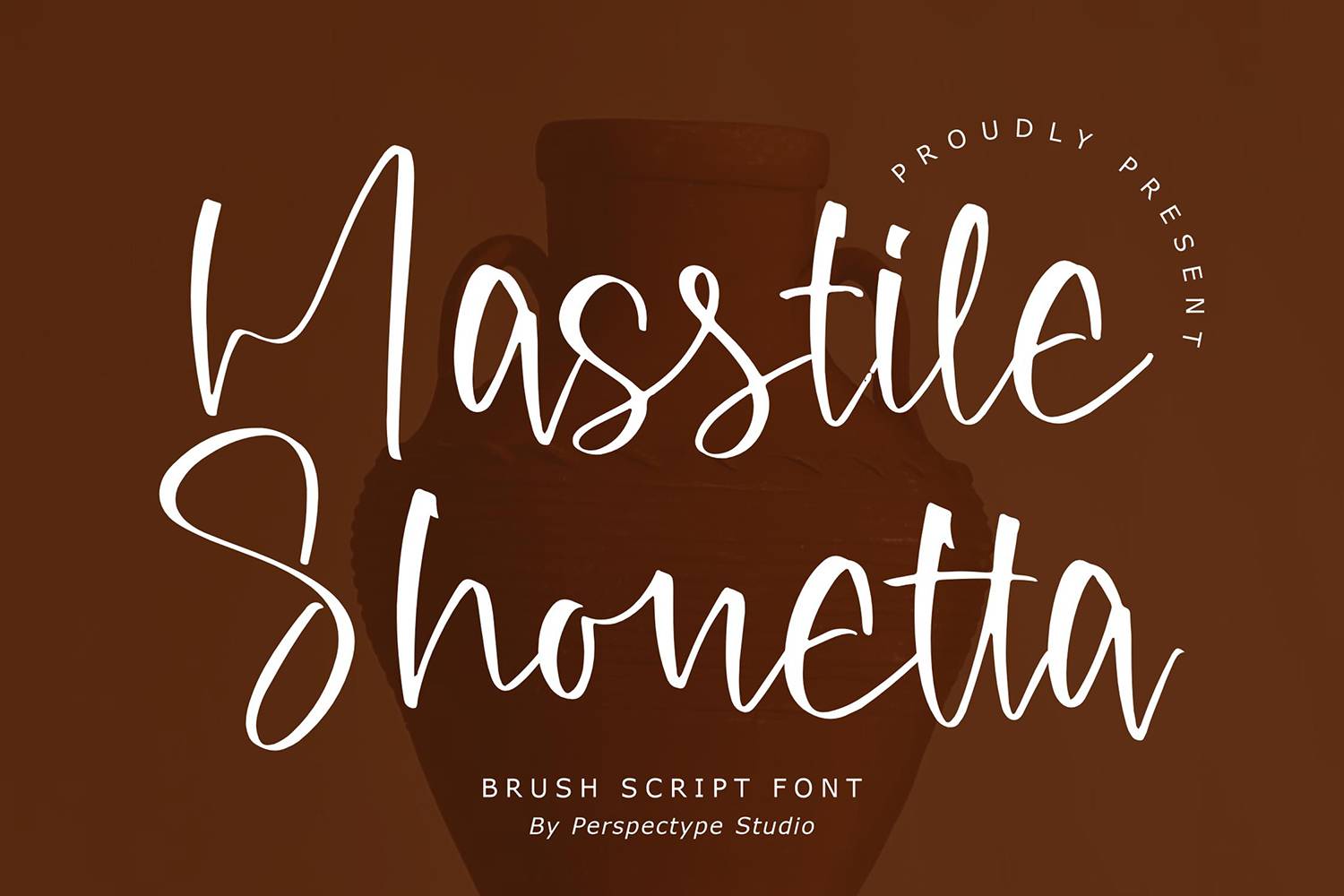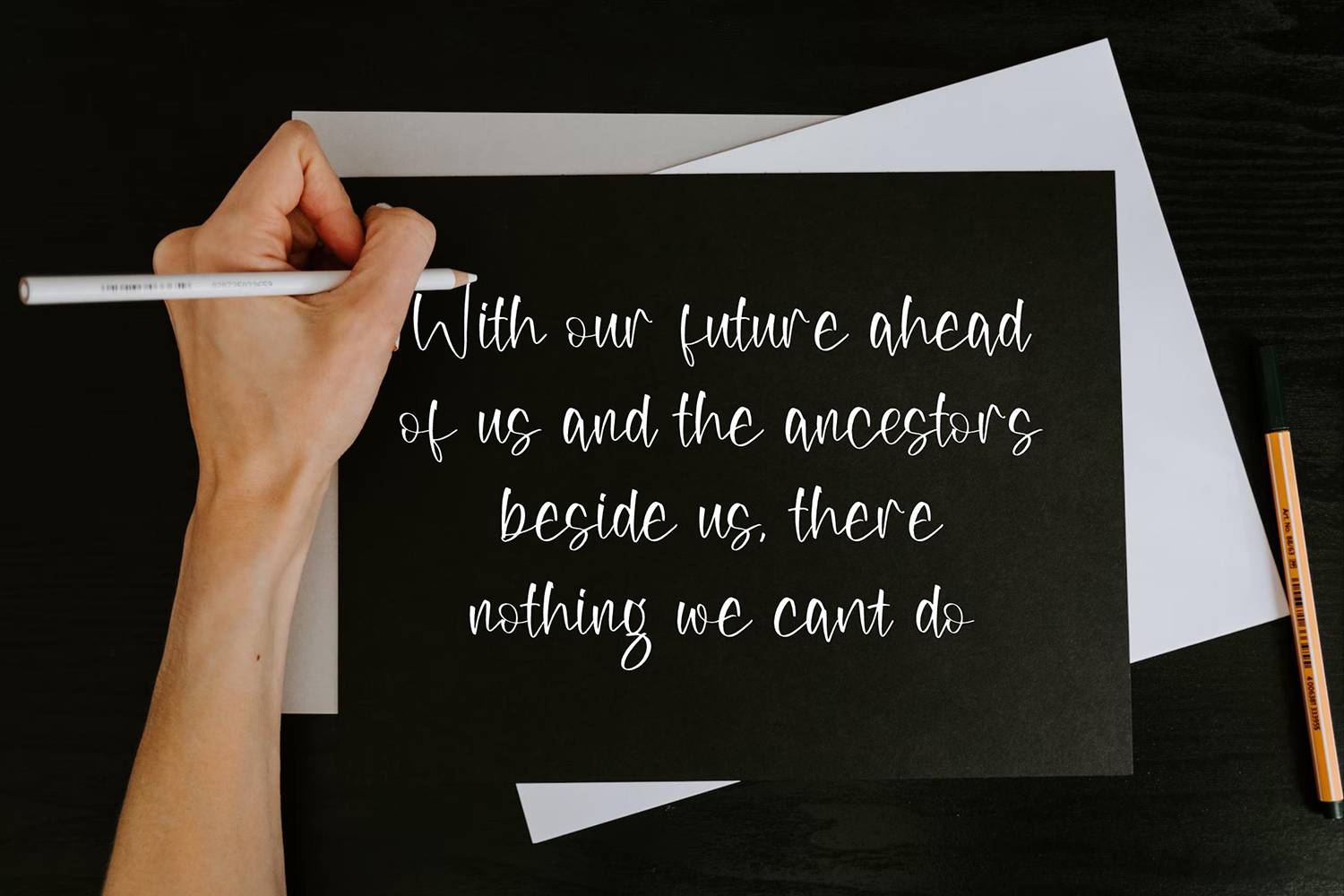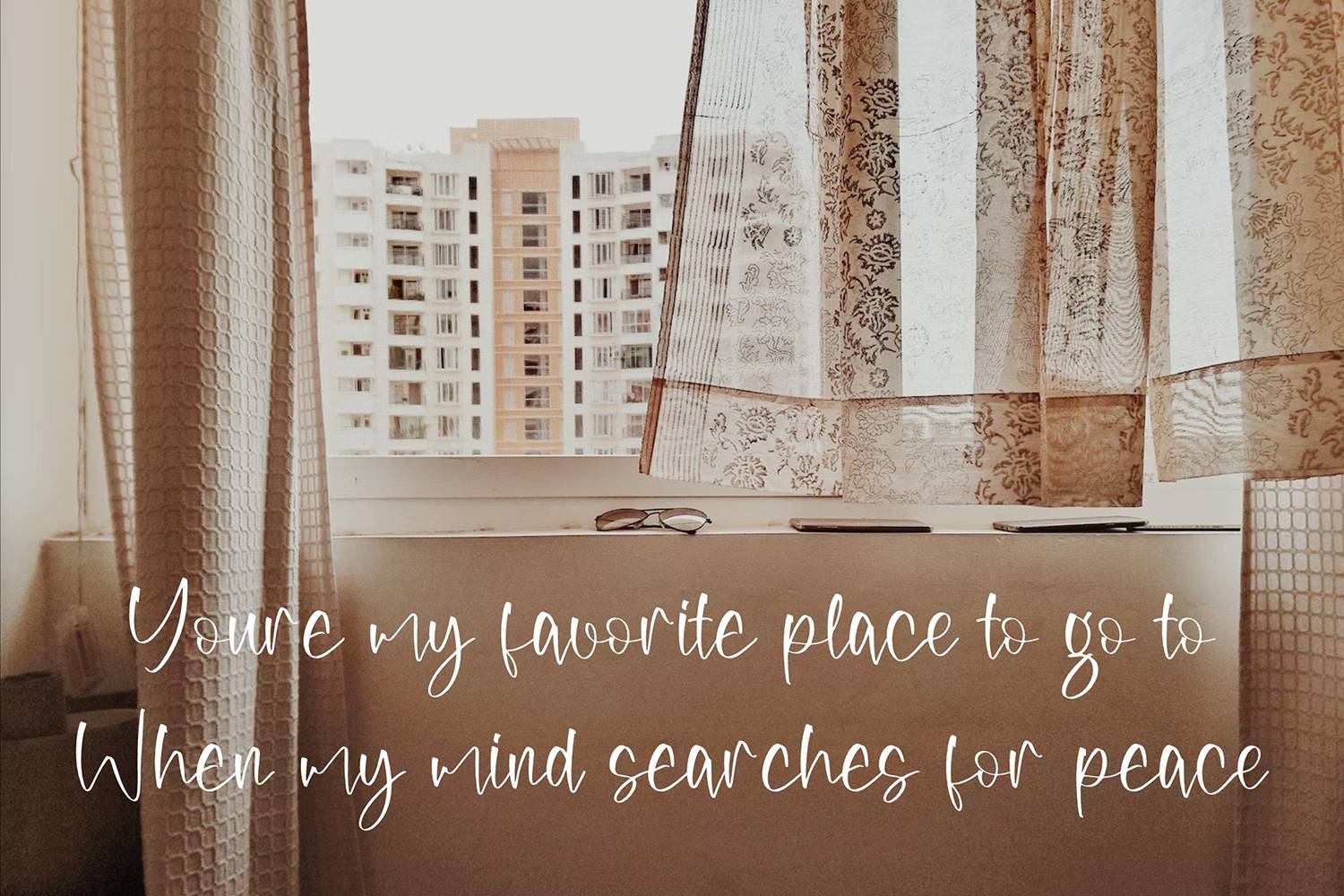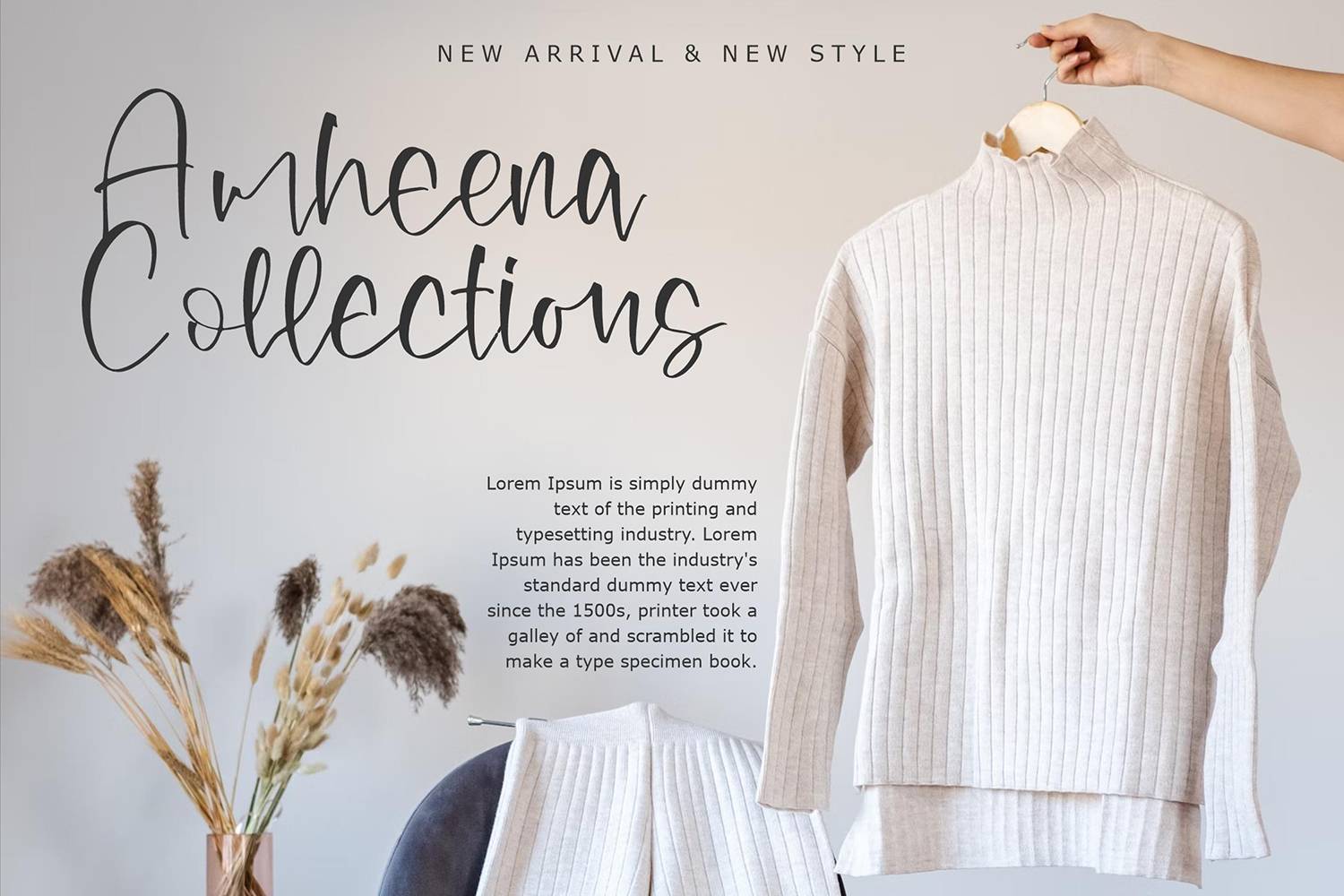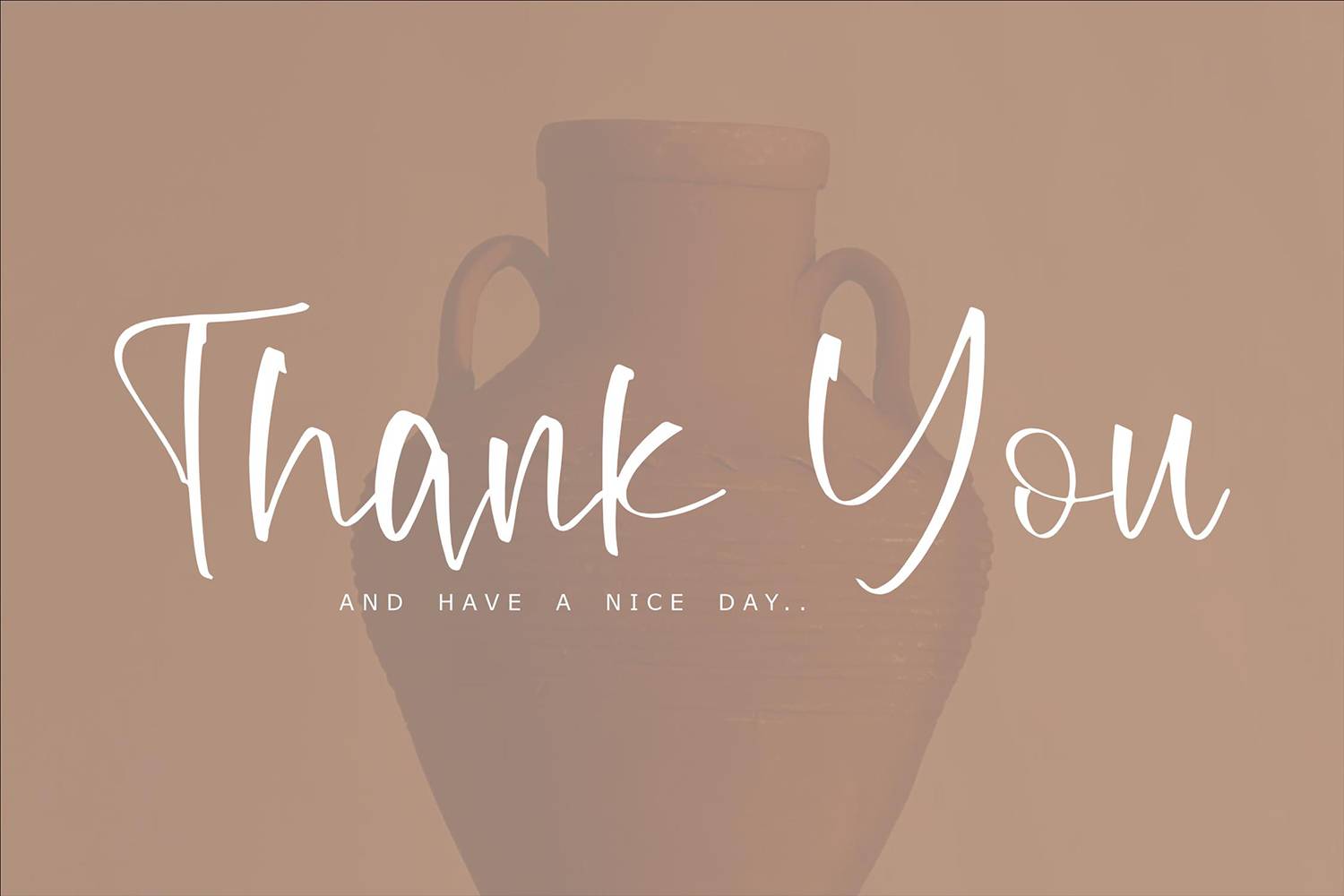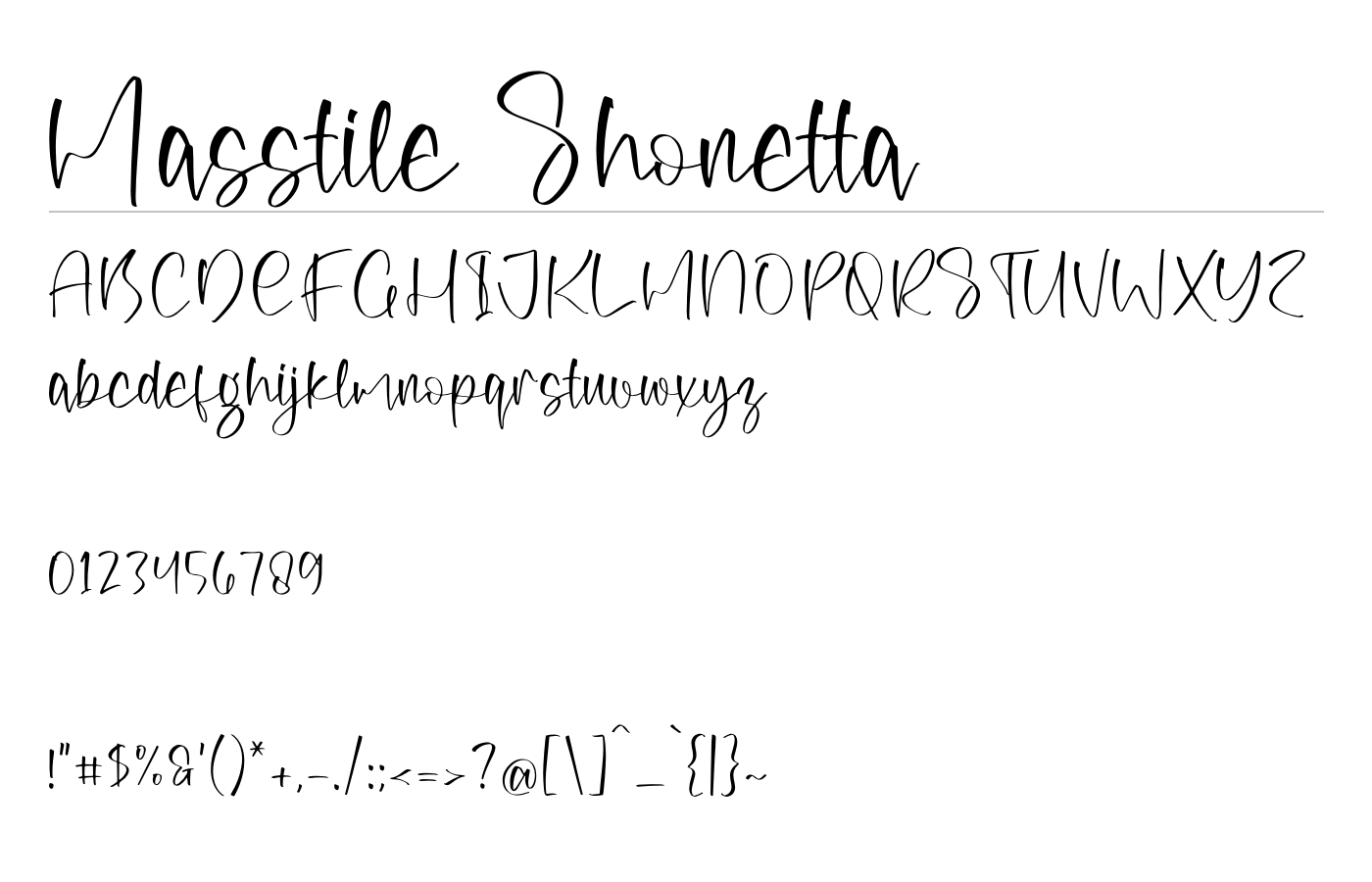
Masstile Shonetta is a delicate and modern handwritten script font that features slender, fluid strokes with a casual, artistic flair. Its narrow width and varied stroke weight create a light and airy feel, making it perfect for designs that seek a personal, elegant touch. This font works beautifully for invitations, branding, and creative projects that want to evoke warmth and sophistication with a contemporary hand-crafted look.
Masstile Shonetta Font
About Masstile Shonetta Font